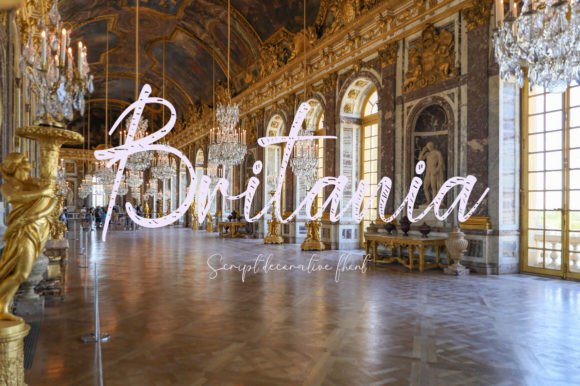
The Designer’s Delight: Unpacking the Bold Charm of Britania Font
I’ll never forget the time I was working on a branding project for a local coffee shop. My client wanted a font that exuded warmth, energy, and a hint of nostalgia. I scoured the internet, tried out countless fonts, but nothing seemed to fit the bill. That was until I stumbled upon Britania Font. ✨ It was love at first sight! The bold, handwritten strokes and confident vibe instantly resonated with my design sensibilities. In this article, I’ll share my experience with Britania Font, its features, and how to make the most of it in your designs.
- ✅ Unique Character: Britania Font boasts a distinct, nostalgic charm that sets it apart from more generic fonts.
- ✨ Versatility: Its bold and confident personality makes it perfect for headlines, logotypes, and any project that needs a stylish touch.
- 🔥 Attention-Grabbing: The font’s dynamic feel ensures your designs won’t go unnoticed.
While Britania Font is a stunning addition to any design project, there are a few things to keep in mind:
- ⚠️ Legibility at Small Sizes: Due to its bold nature, Britania Font might become less legible at very small sizes. It’s best used for headlines or titles.
- 🤔 Pairing with Other Fonts: Finding the right font to pair with Britania can be a bit tricky. Look for fonts with a more minimalist or serif feel to balance it out.
Exploring Alternatives: Similar Fonts for Different Vibes
If you’re looking for fonts with a similar vibe to Britania, consider these alternatives:
- Pacifico: A beautiful, modern script font with a friendly feel. Perfect for designs that need a more casual touch.
- Great Vibes: Offers a stylish, handwritten look with a bit more flair than Britania. Great for adding a touch of elegance.
- Lobster: A classic, elegant script font that’s perfect for formal designs or when you need a bit of sophistication.
- Rock Salt: A fun, casual handwritten font that’s great for adding a playful touch to your designs.
The Story Behind Britania Font
Britania Font was crafted with the goal of creating a typeface that embodies strength, confidence, and a touch of nostalgia. Inspired by classic handwritten fonts, its designer aimed to create a modern take that’s both stylish and versatile. Whether it’s for a logo, a headline, or any design project that needs a bold statement, Britania Font is designed to leave a lasting impression.
Q: Is Britania Font suitable for body text?
A: Due to its bold nature, Britania Font is best suited for headlines and titles. For body text, a more readable font is recommended.
Q: Does Britania Font support OpenType features?
A: Yes, Britania Font comes with OpenType features, including stylistic alternates and glyphs, allowing for more customization in your designs.